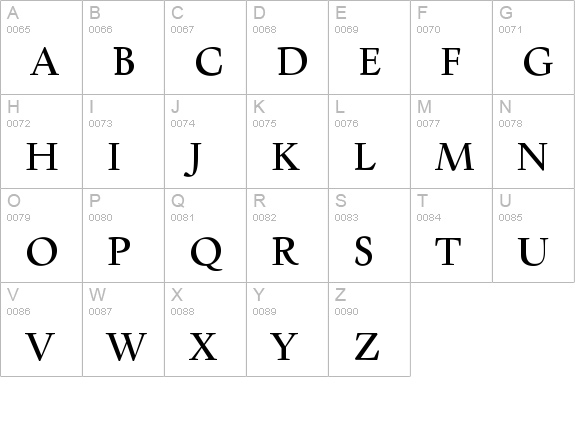
Kennedy Medium Font Details
Kennedy Medium is a balanced, medium-weight variant in the Kennedy typeface family \xE2\x80\x94 well suited to sub-headlines, navigation, and balanced editorial work.
Introducing Kennedy Medium, a versatile and elegant font that effortlessly combines modernity with timeless appeal. With its balanced letterforms and subtle yet captivating details, Kennedy Medium is the perfect choice for those seeking a font that exudes sophistication and professionalism. Designed with utmost precision, Kennedy Medium offers a harmonious blend of curves and straight lines, resulting in a typeface that is both refined and approachable. Its medium weight strikes the ideal balance between boldness and delicacy, making it suitable for a wide range of design projects. Whether used for headlines, body text, or branding purposes, Kennedy Medium commands attention while maintaining a sense of effortless grace. Its legibility ensures readability across various mediums, from print to digital, making it a reliable choice for designers and typographers alike. One of the most remarkable aspects of Kennedy Medium is that it is available for free download at FontsMarket.com. This means that not only can you enhance your creative projects with this exquisite font, but you can also do so without any financial burden. FontsMarket.com offers a vast selection of high-quality fonts, and Kennedy Medium is no exception. By choosing to download Kennedy Medium from FontsMarket.com, you're ensuring that your design arsenal is equipped with a top-notch typeface that will elevate your creations to new heights. In conclusion, Kennedy Medium is a font that effortlessly combines sophistication, versatility, and accessibility. Its timeless appeal and attention to detail make it a must-have for designers seeking to make a lasting impression. And with the added bonus of being freely available to download at FontsMarket.com, there's no reason not to add Kennedy Medium to your typographic repertoire.